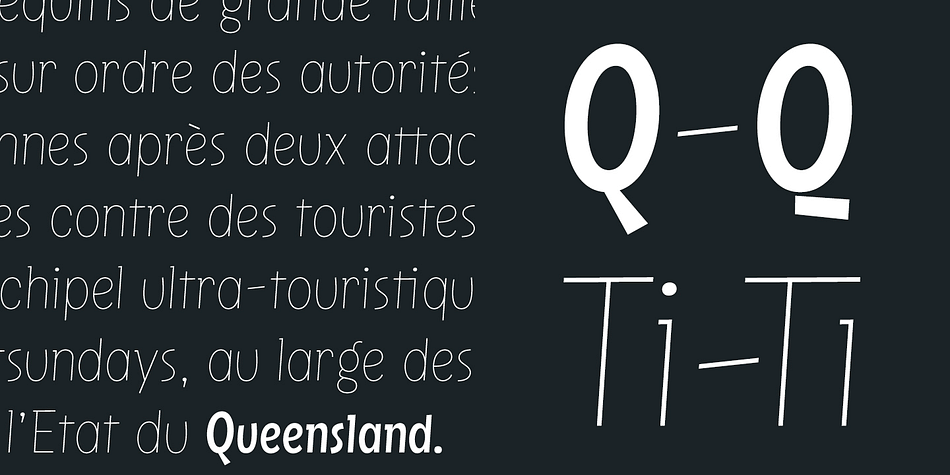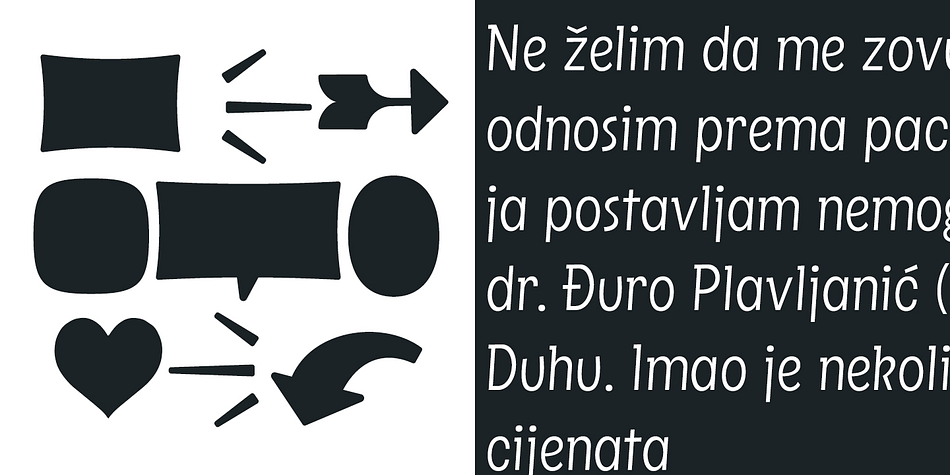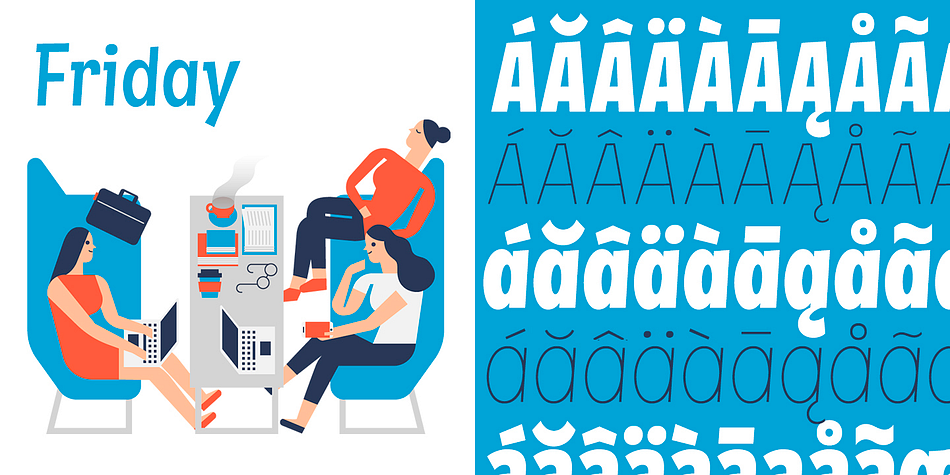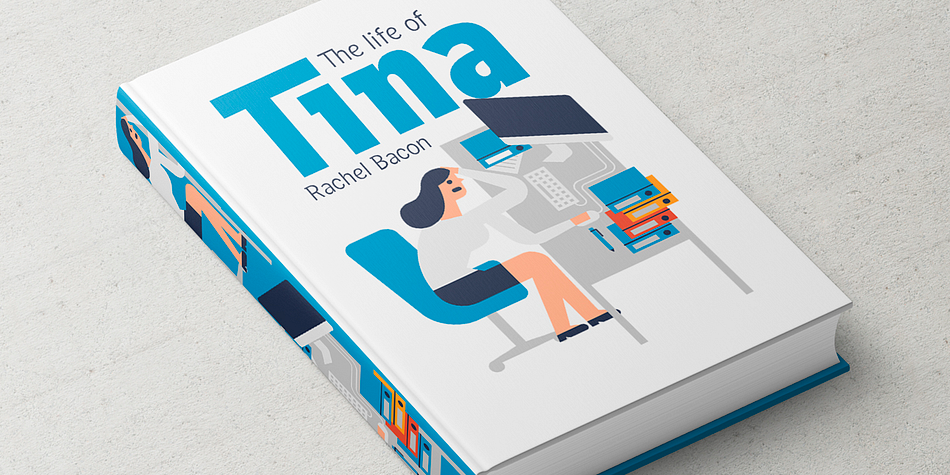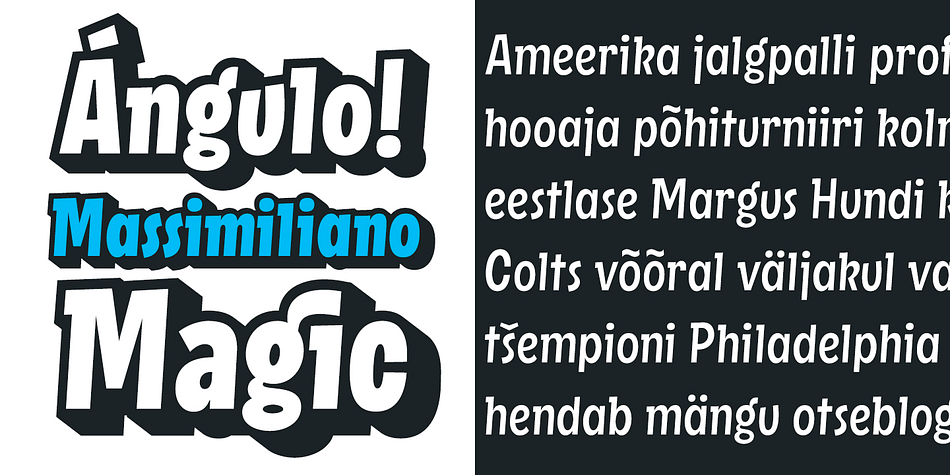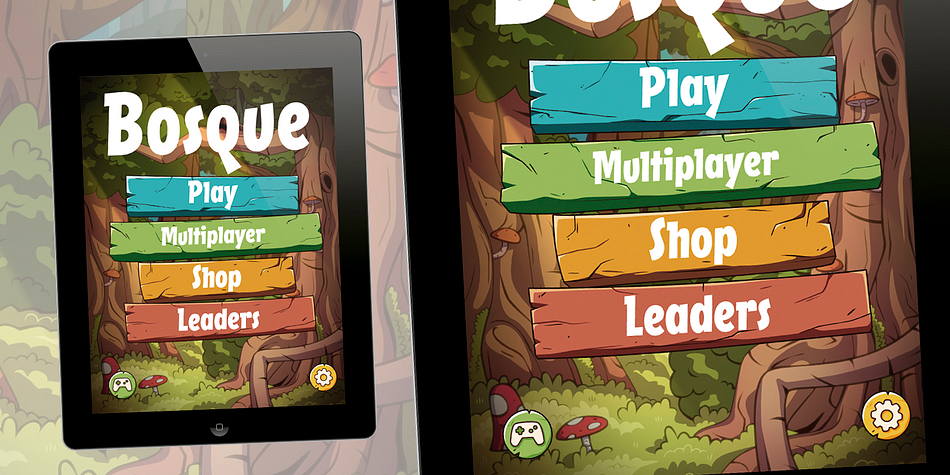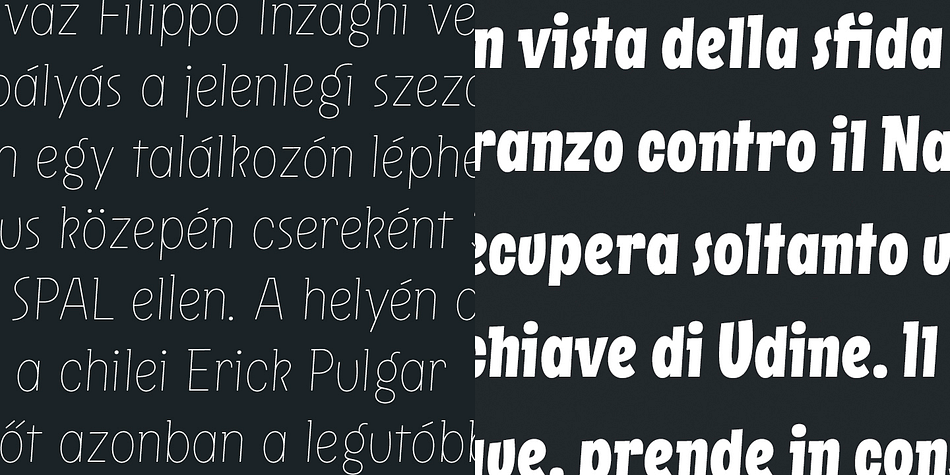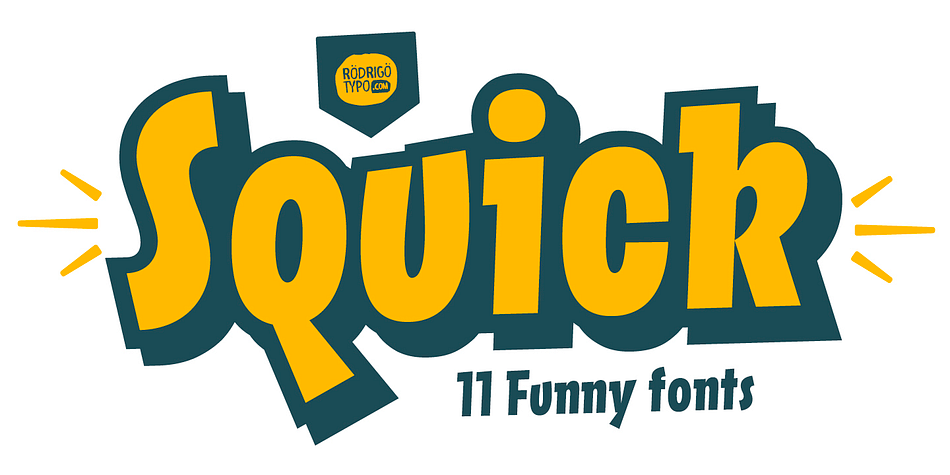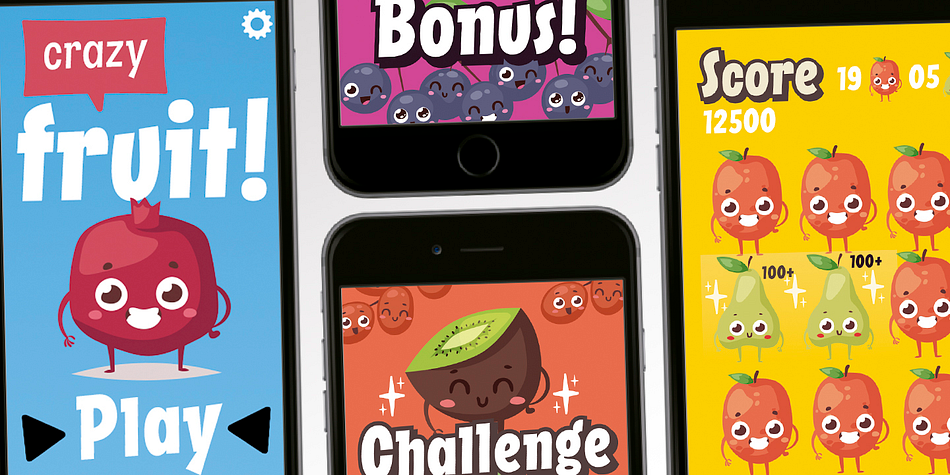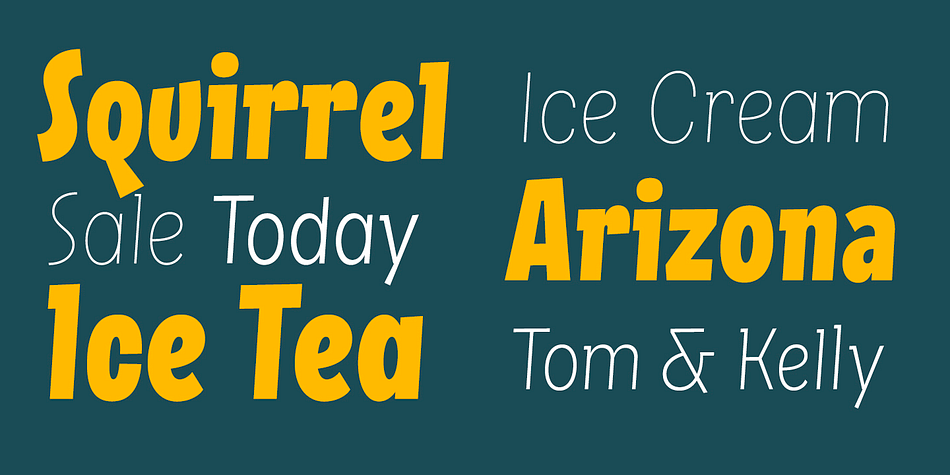
Designed by Andrey Kudryavtsev, Rodrigo Salas and Franco Hernández, Squick is a sans serif and dingbat font family. This typeface has eleven styles and was published by Rodrigo Typo.
Squick - A Typography Sans, Dinamica with many alternatives
from weights (Thin, Light, Normal, Regular, Medium, Bold, Extrabold, Black, Dense)